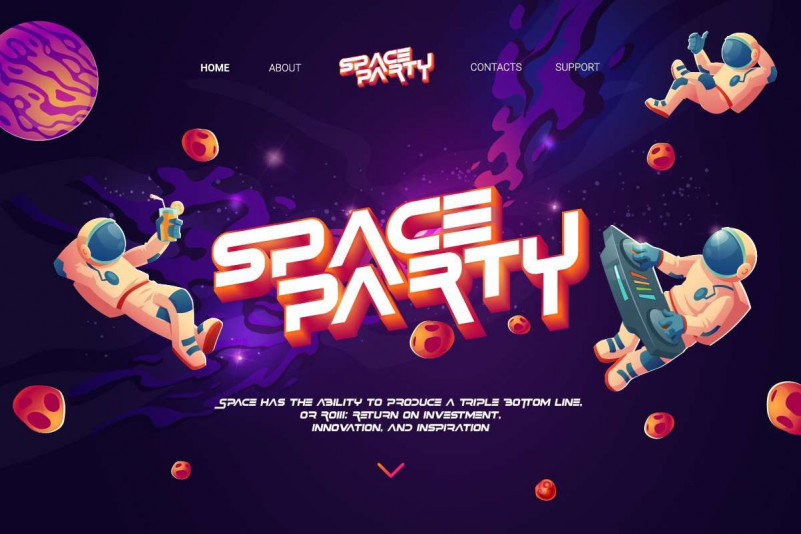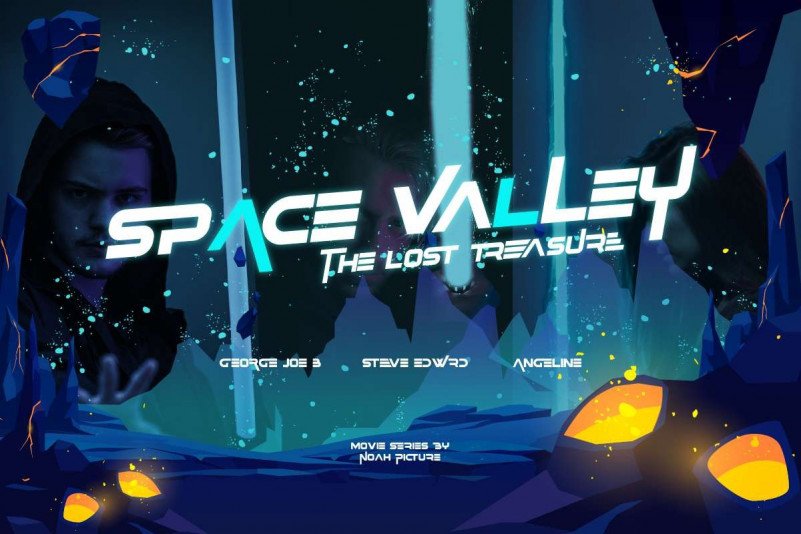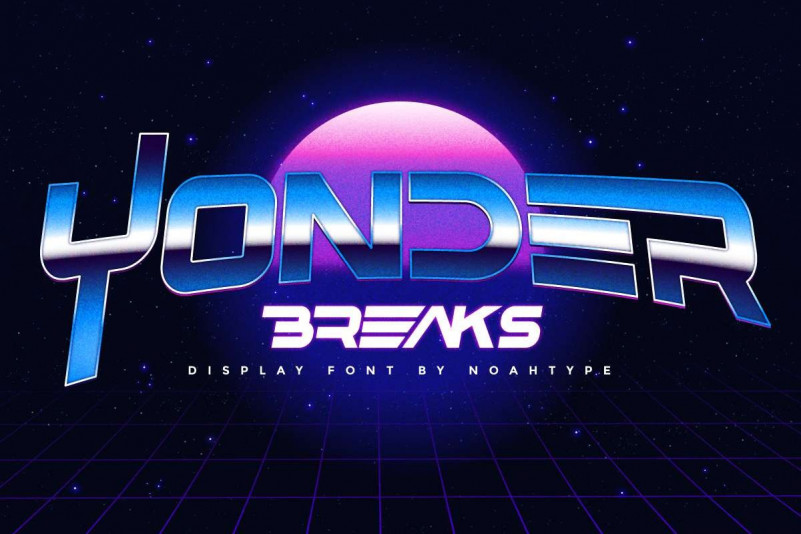
Overfield Display Font
Adventure awaits on the vast galaxy. Technology, robotic, and SciFi is all that lies ahead of us.
Suit perfectly for future and science segmented magazines, posters, movie titles, music posters, youtube covers, youtube thumbnails, social media page covers and so on…